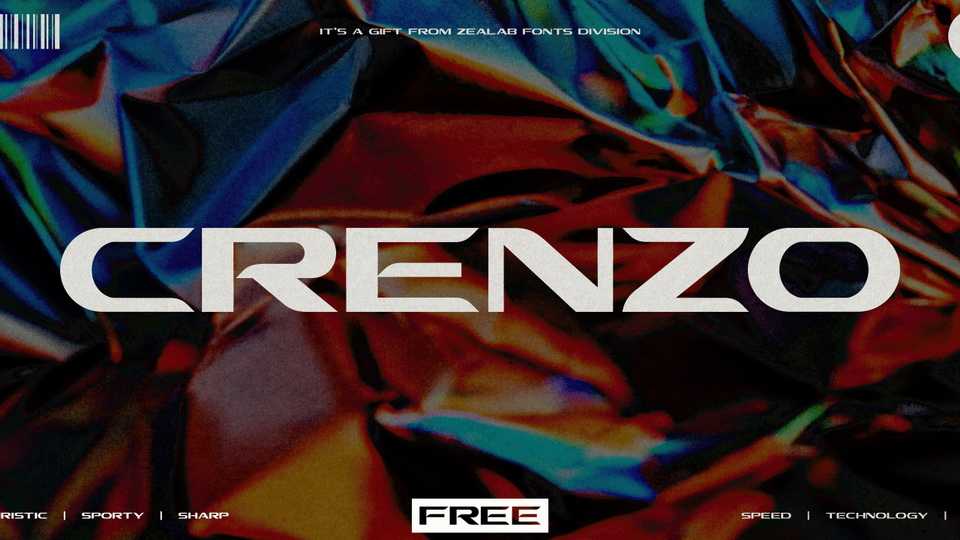
Download Crenzo font, a display typeface that combining geometry and plastic forms to create smooth, high-tech appearance. It’s perfect for tech and gaming design, for logos, titles, packaging, web design, apps and other display use.
Designer: Bagerich Type Foundry